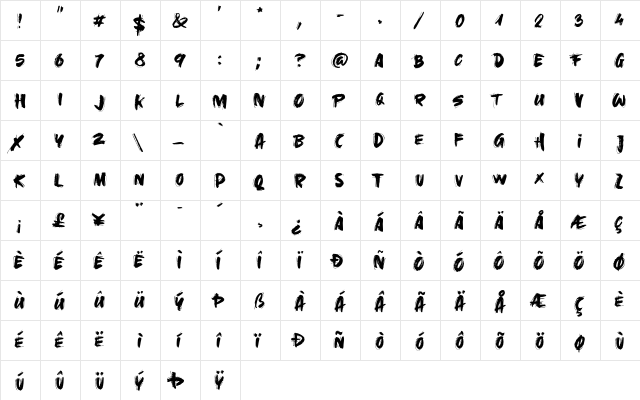
Gold Under The Mud Regular
Design Context for Gold Under The Mud Typeface
Gold Under The Mud is a composed and adaptable typeface that performs quietly and consistently across a wide range of design contexts.
Pro Tip: Use Gold Under The Mud in both headline and body roles to test its range before committing to a single application.